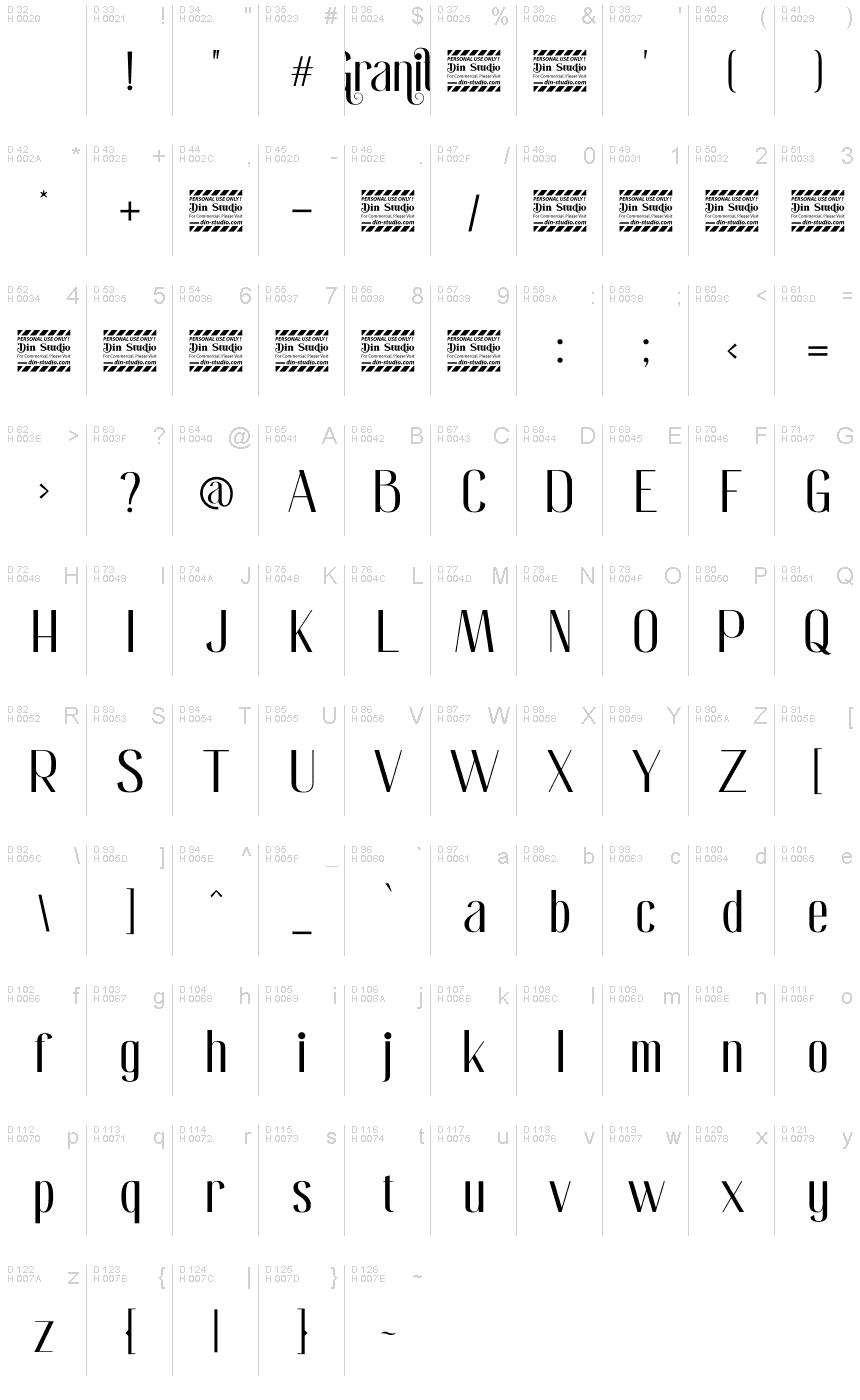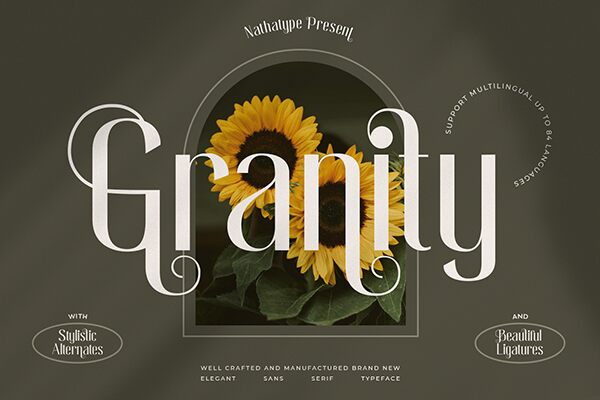
Granity Personal Use
Granity, the newest creation by Din Studio, is a sleek and modern semi-light sans serif font perfect for any project requiring a condensed typeface. With its clean lines and minimalist design, Granity adds a touch of sophistication to any branding or advertising campaign. Its legibility makes it ideal for website headers, blog titles, and social media graphics. Use Granity in your next project to create a polished look that is both professional and engaging. Whether you are designing a logo or crafting an email newsletter, Granity is the perfect choice for achieving your desired aesthetic.